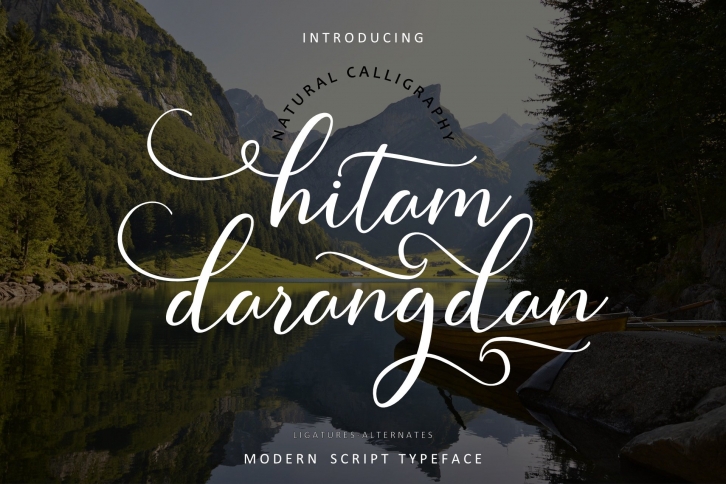
darangdan hitam is a trendy and unique font with an authentic style. It was designed by insanurbahagia and it's a great choice for creative people who need such a font. It was released on February 7, 2021 and the file size is 8.63 MB. darangdan hitam will add an organic vibe to any design idea!